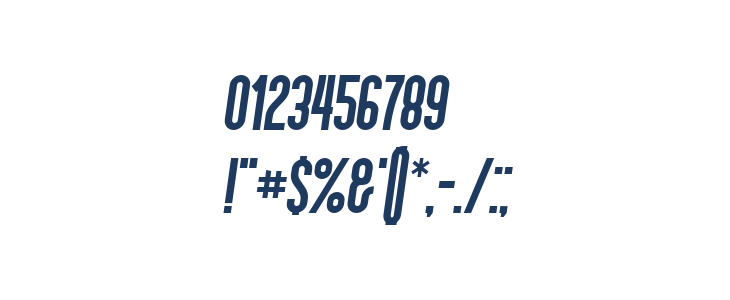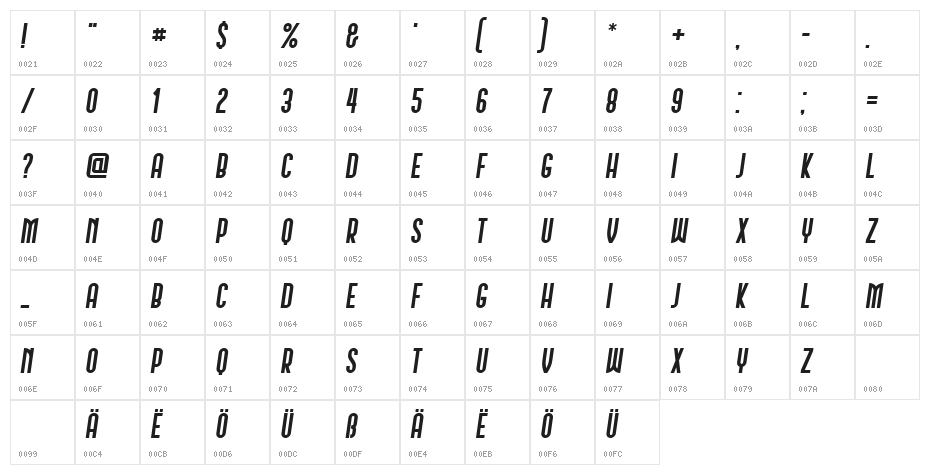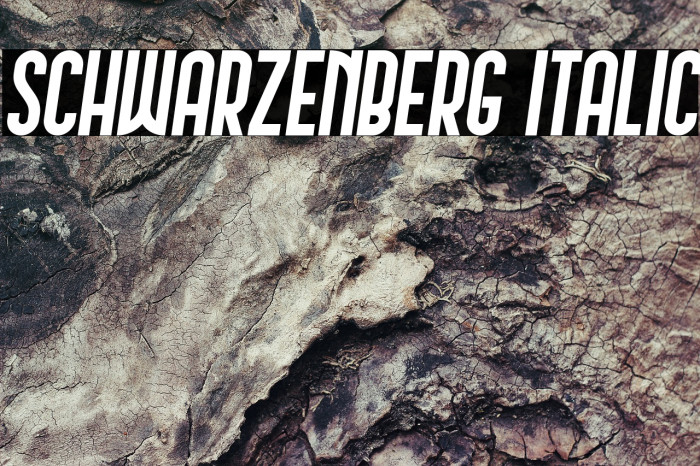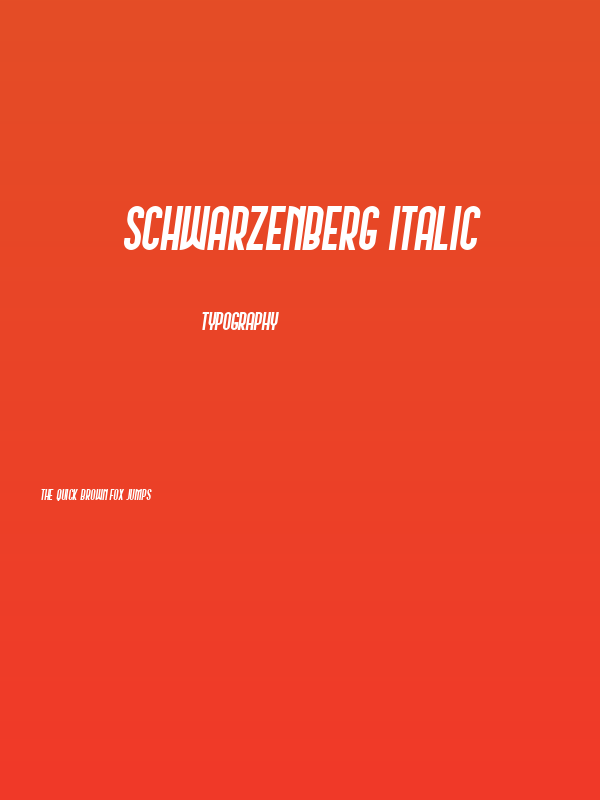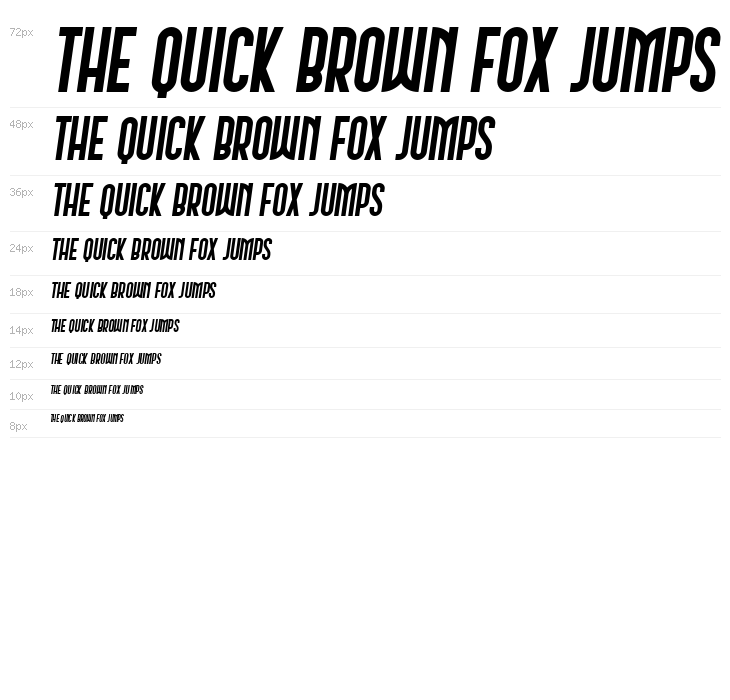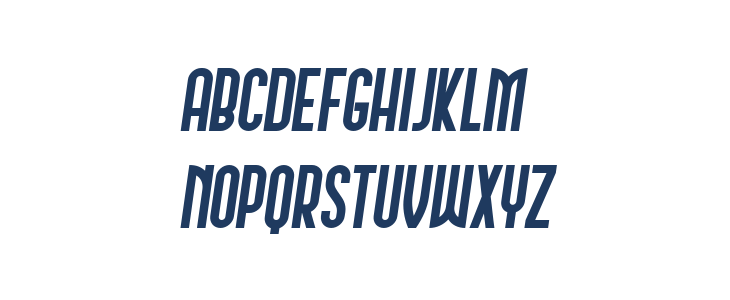
Schwarzenberg Italic Font
Schwarzenberg Italic Description
This font exhibits a bold and dynamic style with a pronounced italic slant, giving it a sense of motion and energy. The characters are tightly spaced, enhancing its compact and impactful appearance. The strokes are consistent in thickness, providing a uniform look across all characters. The uppercase and lowercase letters maintain a cohesive design, with sharp angles and a modern aesthetic. The numerals and special characters follow the same stylistic cues, ensuring a harmonious overall presentation. This font's boldness and slant make it ideal for attention-grabbing applications.